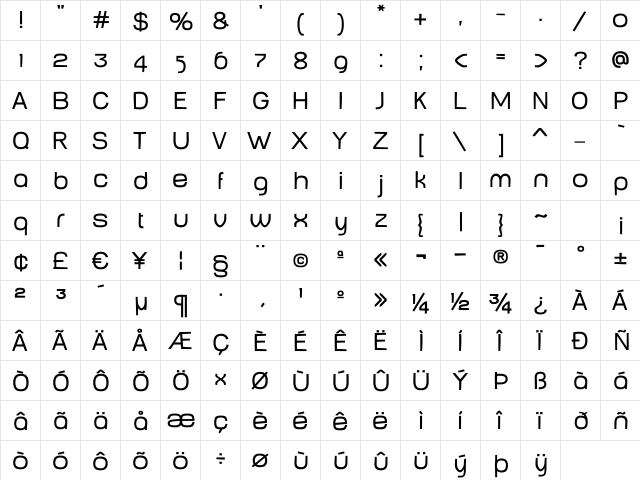
Baby MinePlump Regular
Design Context for Baby MinePlump Typeface
Baby MinePlump takes a measured approach to typography — its balanced proportions and neutral character make it a reliable workhorse for both digital and print work.
Pro Tip: Pair Baby MinePlump with a font of contrasting weight or personality to build a more expressive typographic hierarchy.